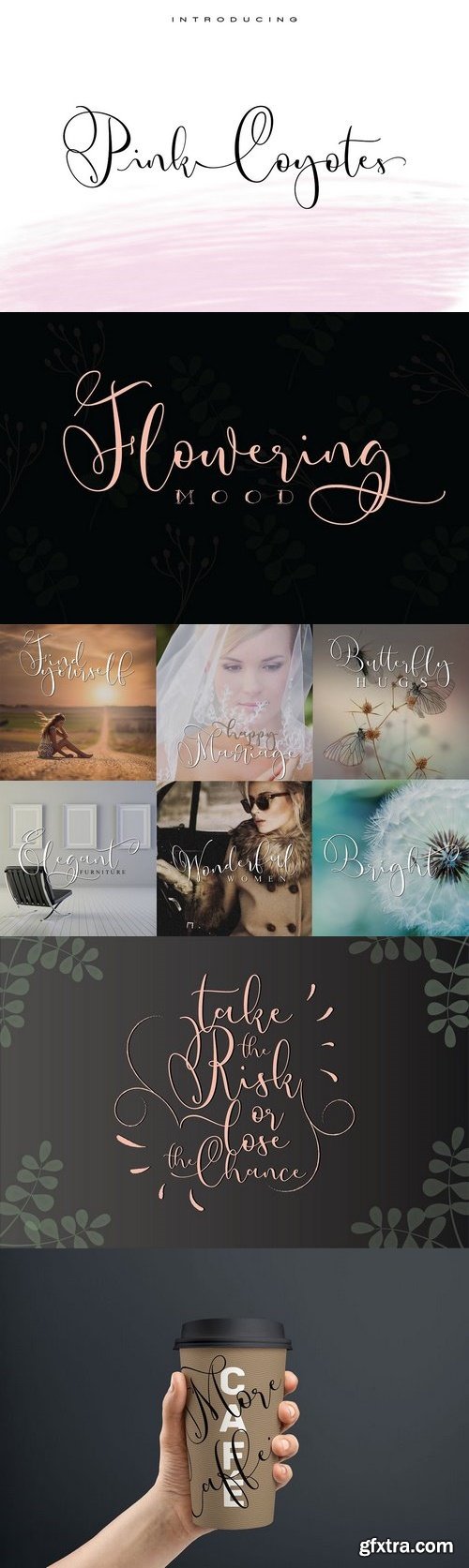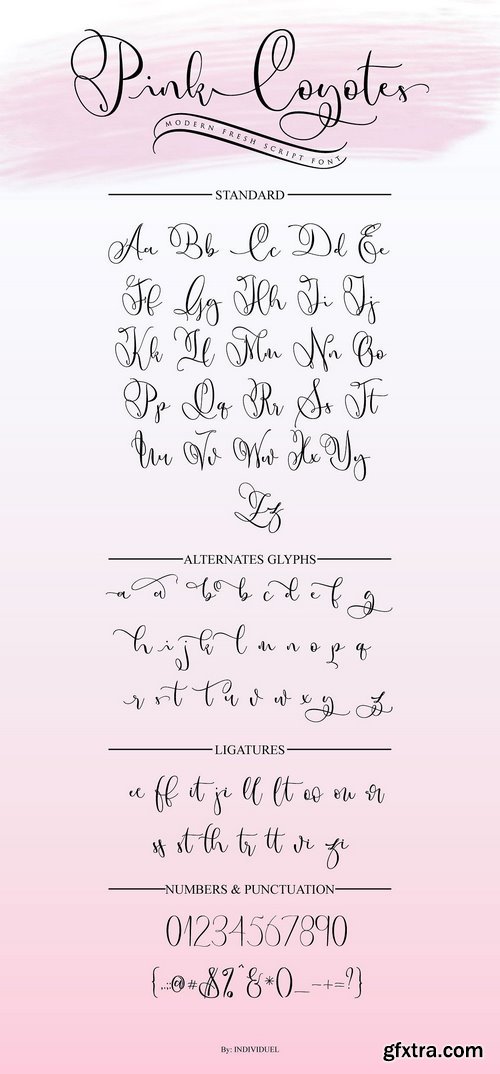
CM - Pink Coyotes 1857345
Introducing a PINK COYOTES, a hand lettering modern fresh script font, Pink Coyotes creating the natural font for your designs beyond a standard font and include Ligatures (letters custom). You are very welcome to use it for various purpose like wedding invitations, logos, signatures, t-shirts design, cards, printed quotes, product packagings, headings, blogs, graffiti, website headline and more. Enjoy this exclusive set and explore your fantastic design.